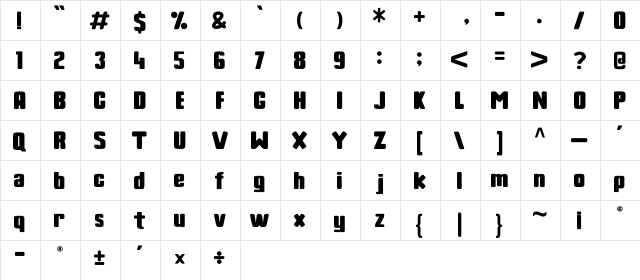
Rothenberg Regular
| Designer | Estiko Priyanto |
Design Context for Rothenberg Typeface
Rothenberg offers clean, dependable letterforms without strong stylistic allegiance, making it a practical choice for designers who need flexibility.